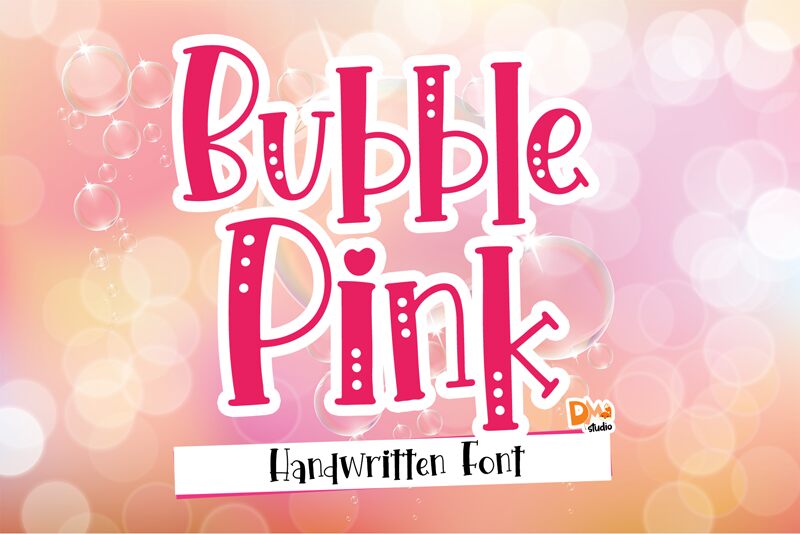
This enchanting font will turn any creative idea into a true standout.
Perfect fit for all of your logos, branding, social media, etc.
Get creative with its unique playfulness, and use it to brighten up any crafting project!
Bubble Pink
This font was created By DM Letter Studio ( Dimas & Yuniar ) From Bandung - Indonesia .